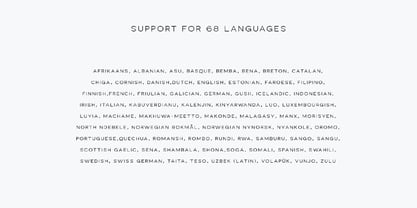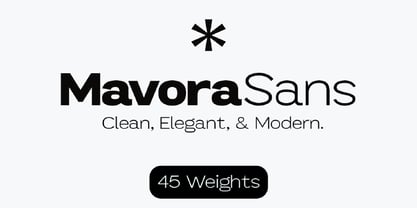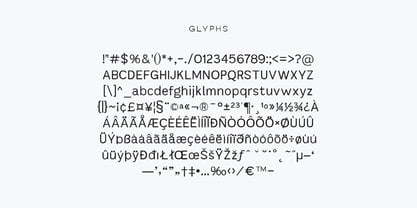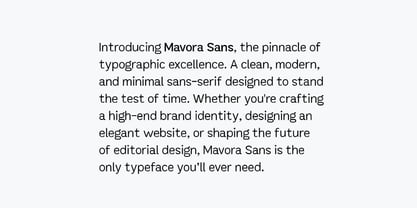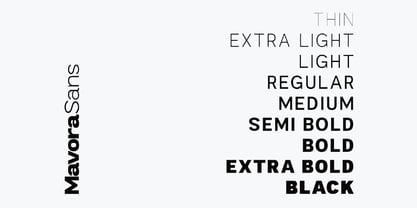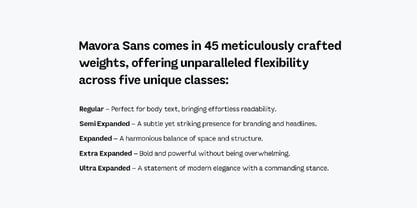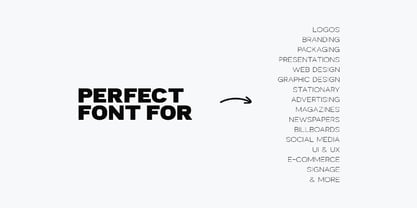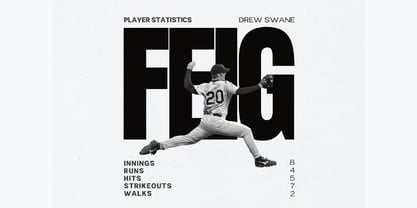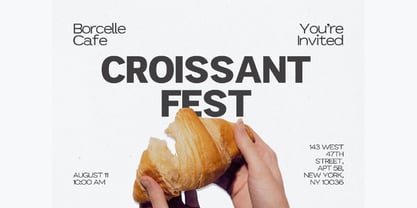
Mavora Sans
La familia tipográfica Mavora Sans fue diseñada por Igor Ovsyannykov y publicada por Hipfonts. Mavora Sans contiene 45 estilos y opciones de paquete familiar.
Introducing Mavora Sans, the pinnacle of typographic excellence. A clean, modern, and minimal sans-serif designed to stand the test of time. Whether you're crafting a high-end brand identity, designing an elegant website, or shaping the future of editorial design, Mavora Sans is the only typeface you’ll ever need.
Some fonts fade with time. Mavora Sans is forever. With a design that is timelessly modern, this is a typeface that will look just as stunning 100 years from now as it does today. Whether you’re creating for print, digital, UI/UX, branding, advertising, or signage, Mavora Sans adapts seamlessly to any project.